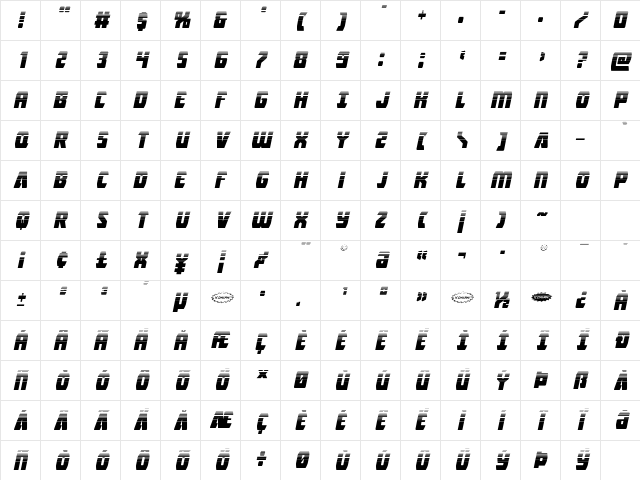
Intergalactic Halftone Italic Italic Free Font
Intergalactic Halftone Italic Italic
Design Context for Intergalactic Halftone Italic
Intergalactic Halftone Italic is a composed and adaptable typeface that performs quietly and consistently across a wide range of design contexts. The slanted form adds forward momentum and visual energy.
Pro Tip: Use Intergalactic Halftone Italic for emphasis, pull quotes, and subheadings where its slanted energy can add rhythm to the layout.